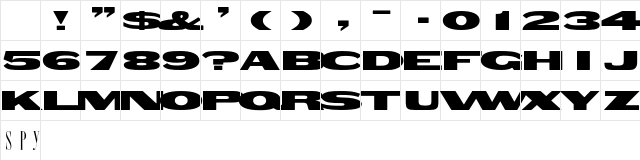
Woodtype-HTF-GothicExtended echoes the hand-painted signage and woodblock typography of the American frontier, with a warm, rugged personality.
Font Pairing: Combine Woodtype-HTF-GothicExtended with a simple slab or neutral sans - period-accurate companions reinforce the vintage feel without competing for attention.
Pro Tip: Use Woodtype-HTF-GothicExtended for short, impactful bursts of text - it shines in poster headlines and product names rather than extended copy.